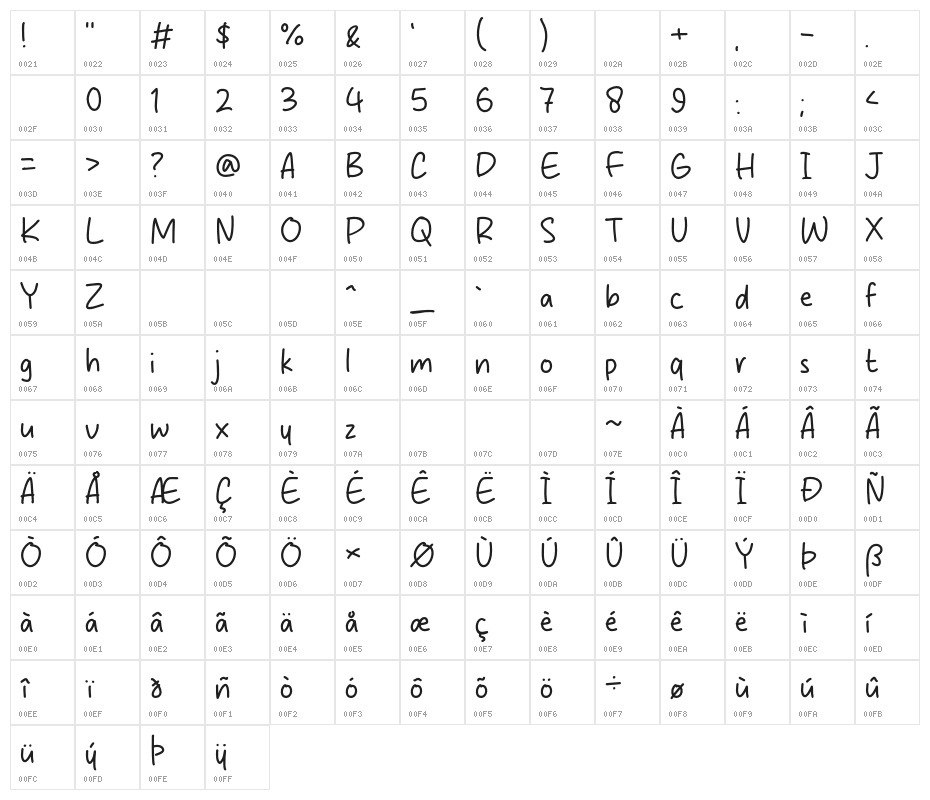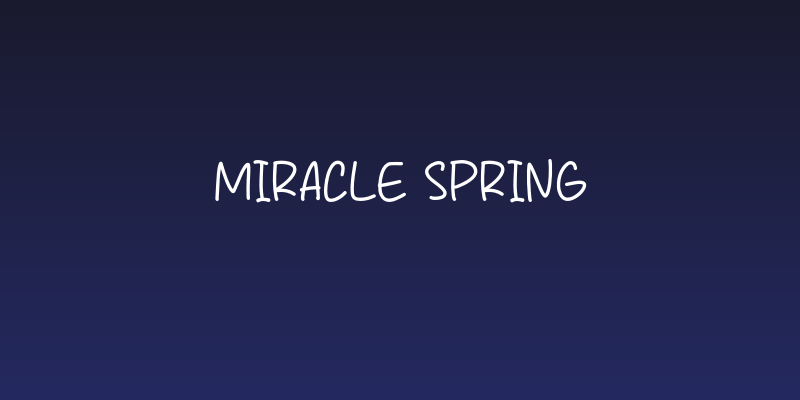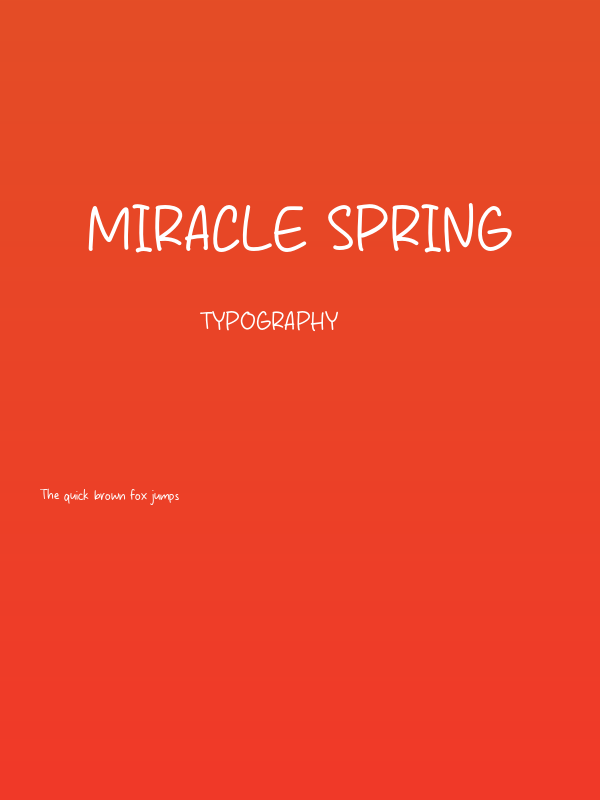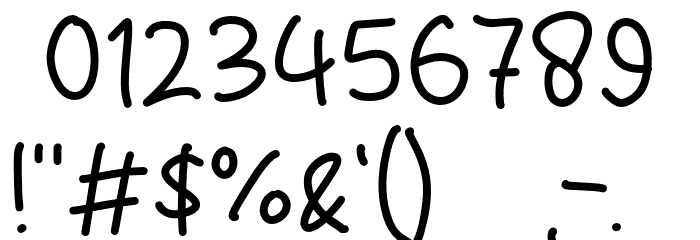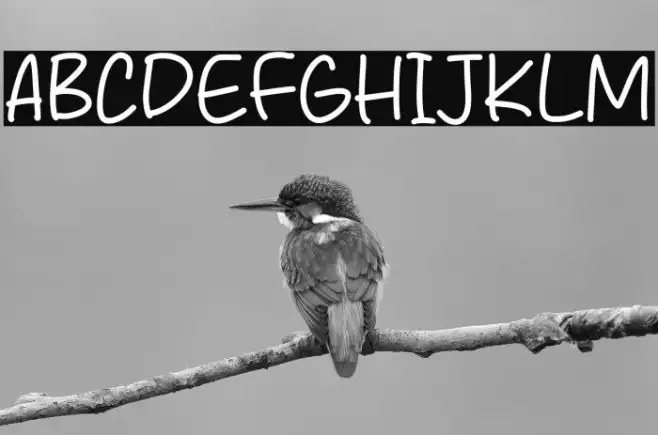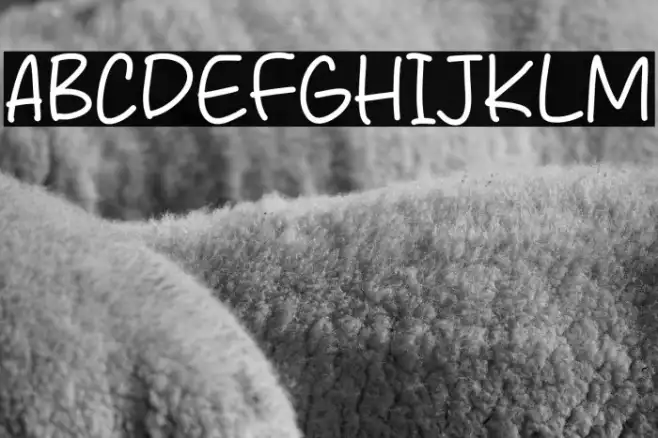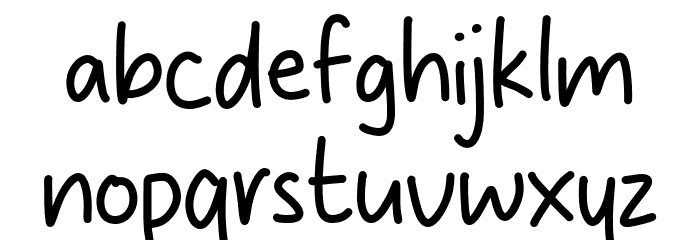
Miracle Spring Font
Miracle Spring Description
This font features a casual, handwritten style with smooth, flowing lines that give it a friendly and approachable appearance. The characters are slightly rounded, adding to its informal and relaxed feel. The uppercase and lowercase letters are well-proportioned, maintaining a consistent style throughout. The numerals and special characters complement the overall design, making it versatile for various uses. Its playful nature makes it suitable for creative projects, while its readability ensures it remains functional.